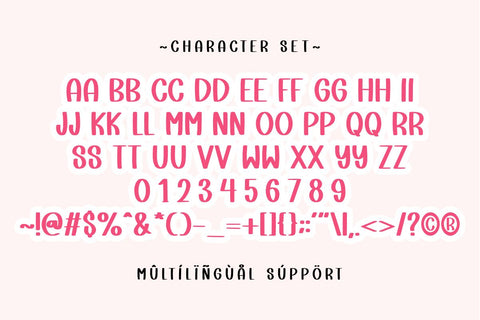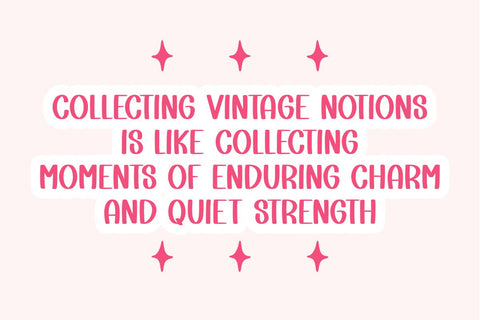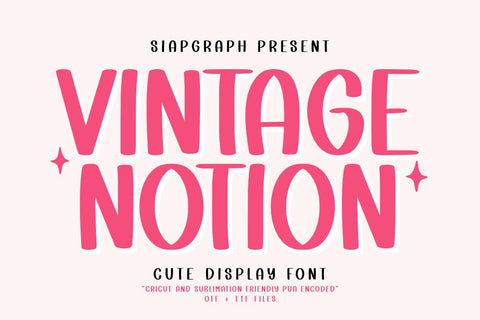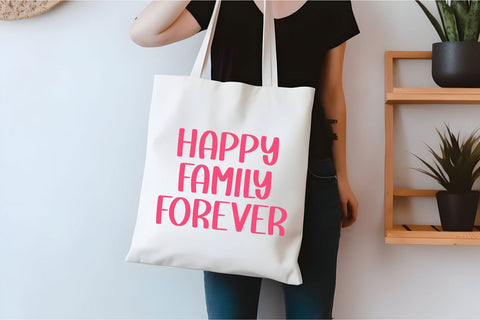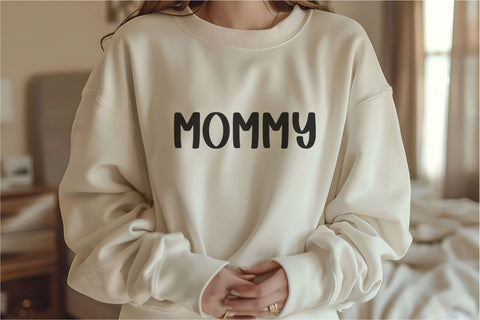
Vintage Notion - Cute and Fun Display Font
Vintage Notion is a cute and playful display font that blends a retro feel with a modern twist. Designed specifically for Print On Demand creators, this font is perfect for planner pages, Cricut crafts, sublimation projects, t-shirt designs, mugs, stickers, and more. The bold and cheerful letterforms make your designs stand out with a charming, handcrafted look. Fully PUA encoded and available in OTF + TTF formats, Vintage Notion is user-friendly for cutting machines like Cricut and Silhouette. Ideal for crafters, DIY enthusiasts, and small business owners who love cute vintage-style fonts!